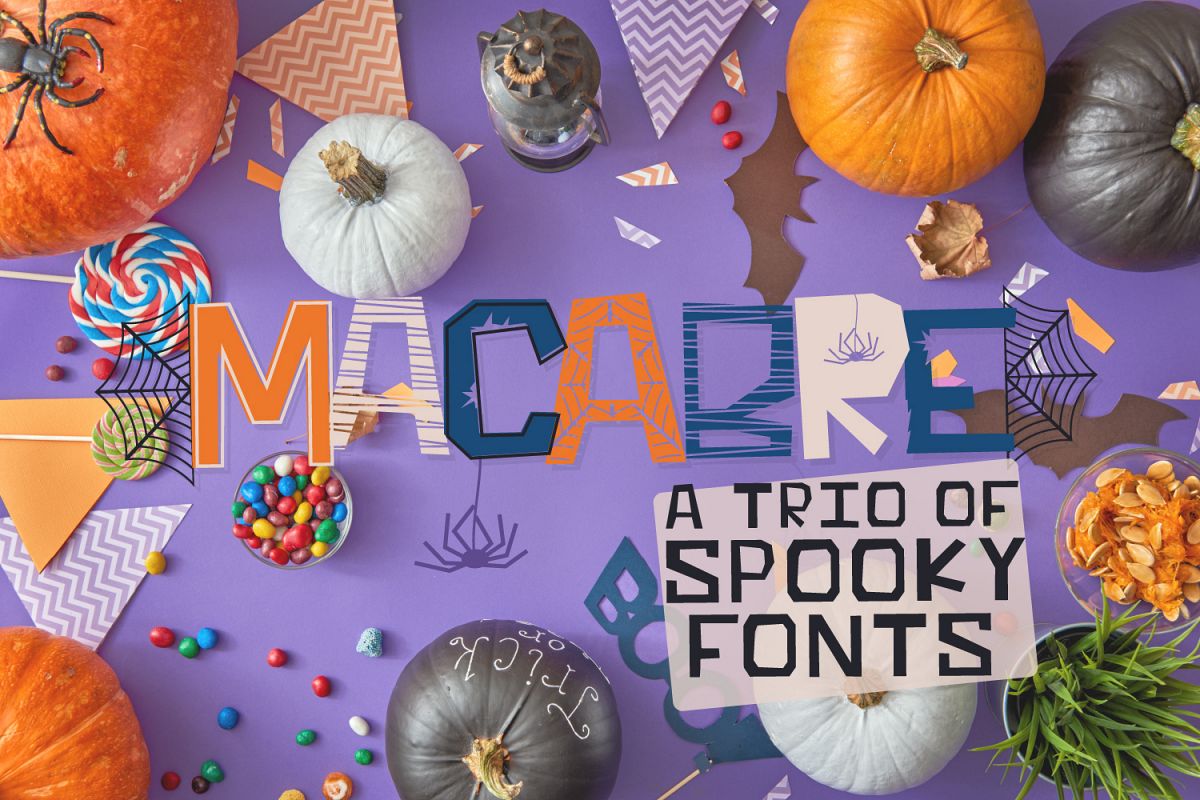
MACABRE - A Halloween Font Trio
Layer and play with these 6 different type styles- along with a mini set of awesome Spider Extras!
Perfect for Trick Or Treat bags/buckets - cards - invites - so much more! Style out this fun font to match whatever spooky endeavor you're in!